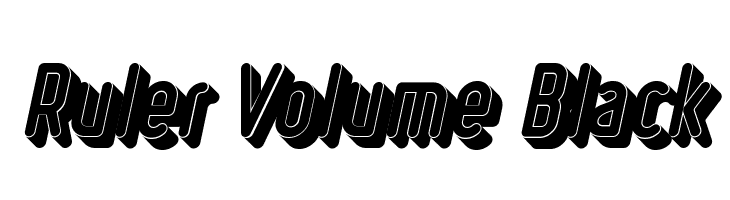
A modern, geometric font with bold, rounded characters.
A modern, geometric outline font with uniform strokes and a minimalist design.
A modern, outlined italic font with a sleek and dynamic style.
A modern, geometric stencil font with consistent line thickness and rounded edges.
A bold, modern stencil font with rounded edges and distinct breaks.
A bold, italic stencil font with a modern and dynamic style.
A bold, stencil-style font with rounded edges and heavy weight.
A bold, italicized stencil font with a modern and industrial style.
A modern stencil font with an italic slant and geometric design.